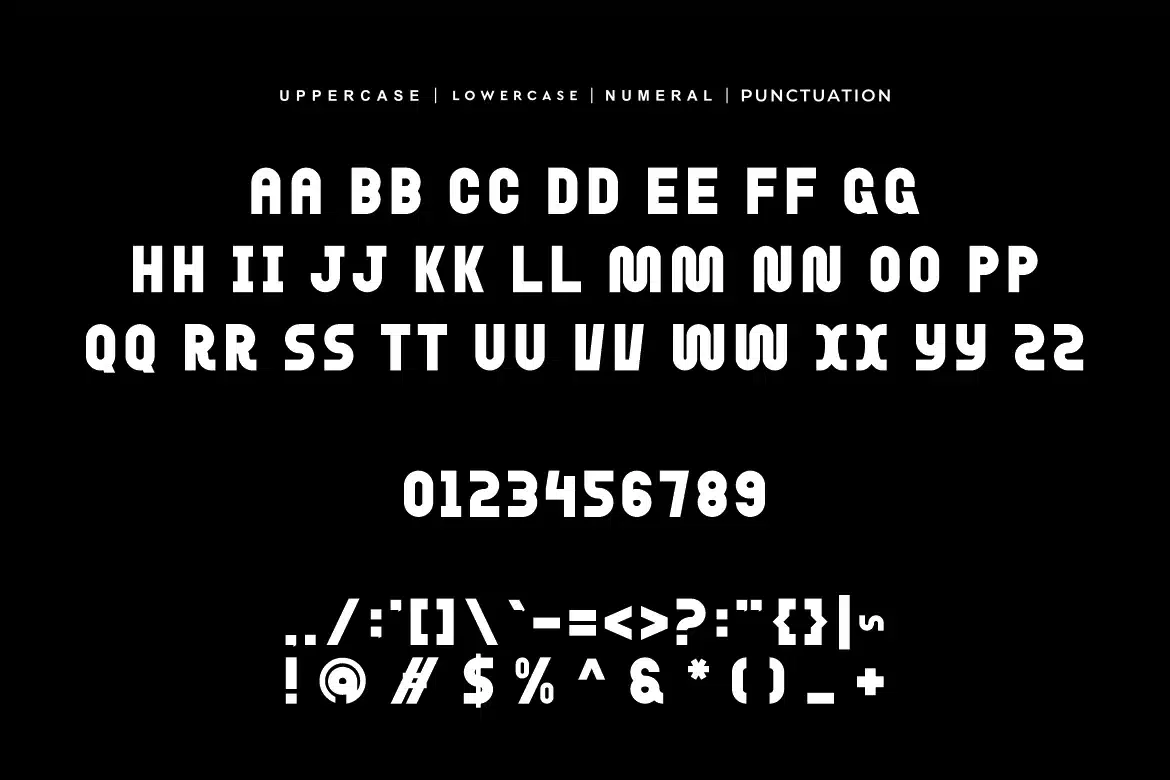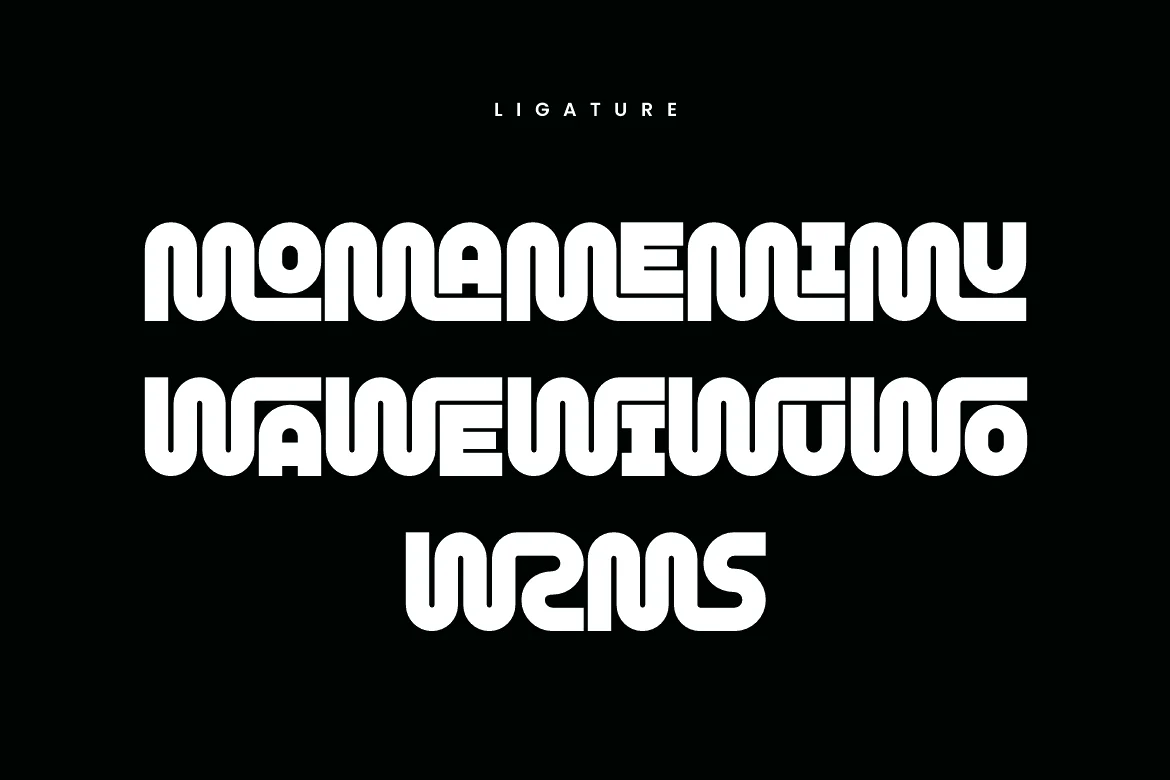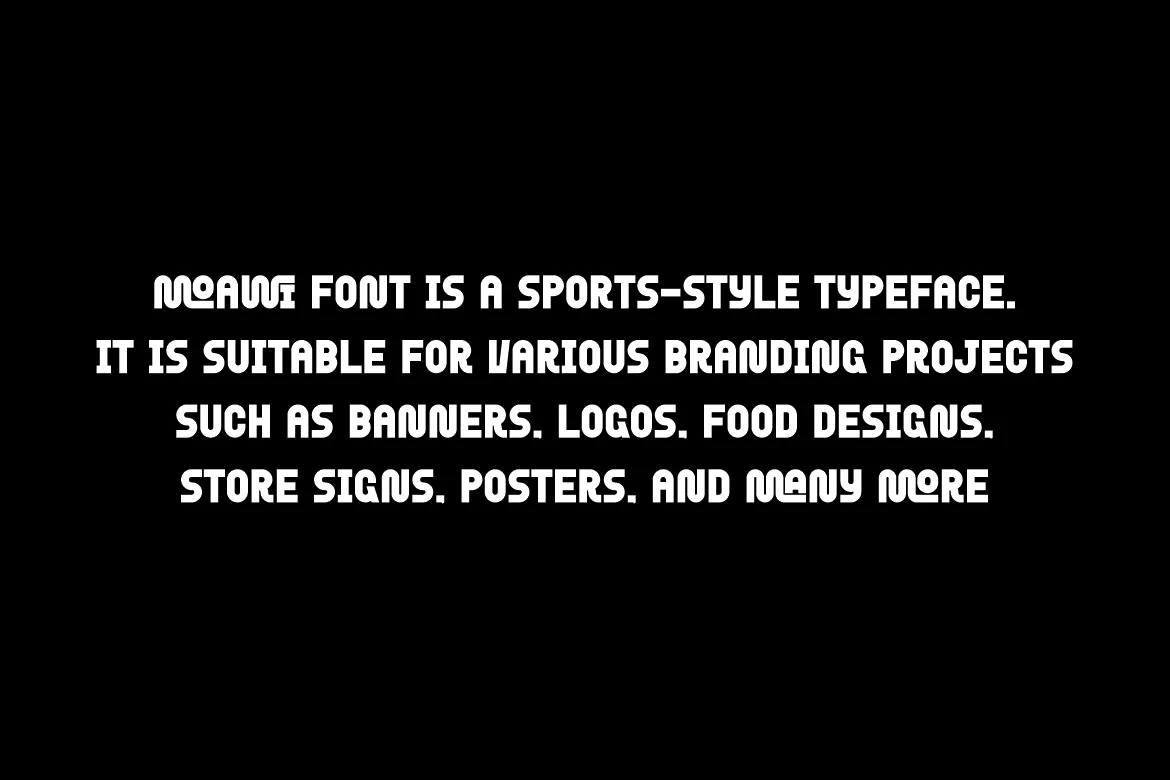
Moawi – Sports Font
Moawi Font is a bold and authentic display typeface.
It’s perfect for various branding projects such as logos, sports designs,
and more. This font stands out beautifully in a wide range of contexts.